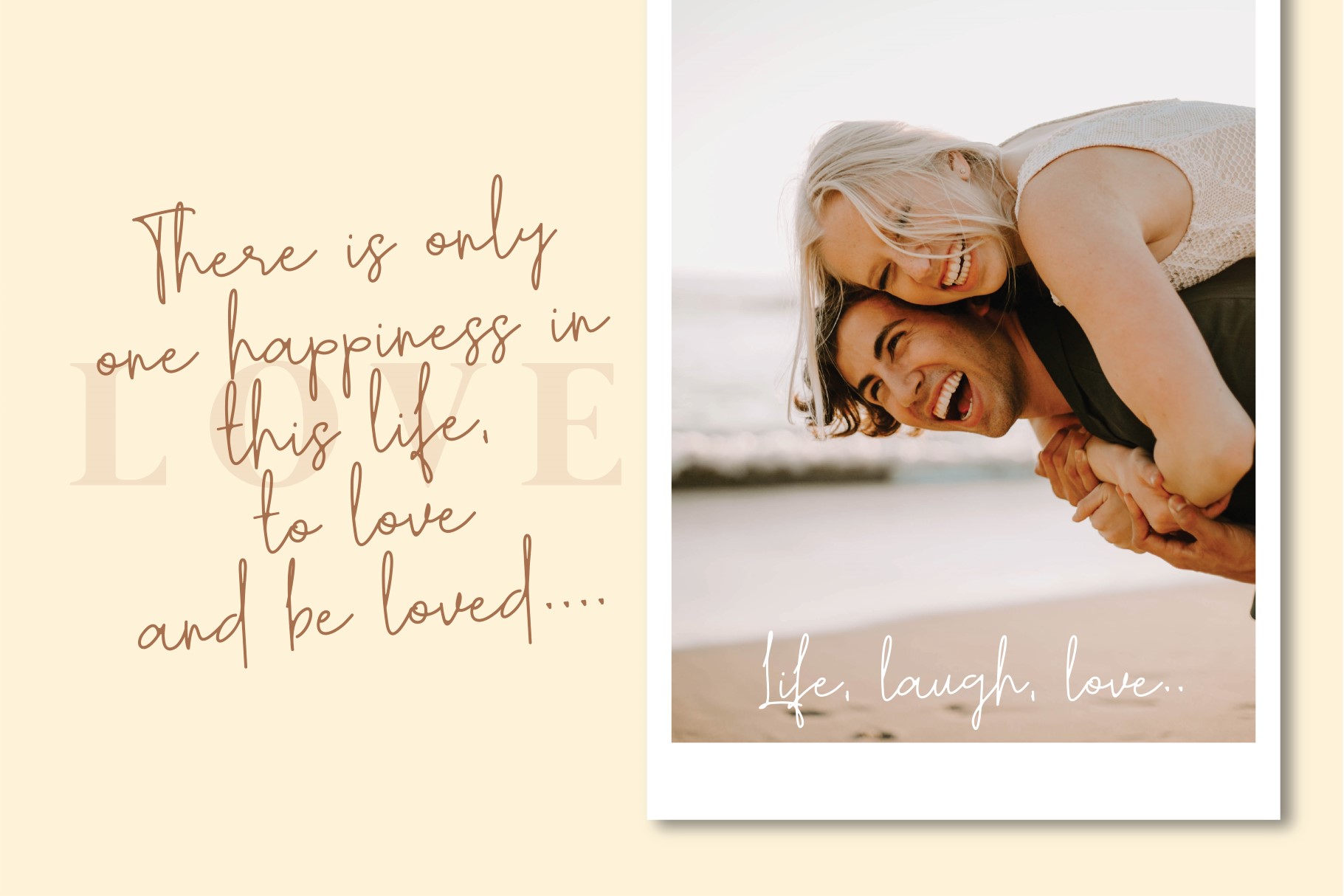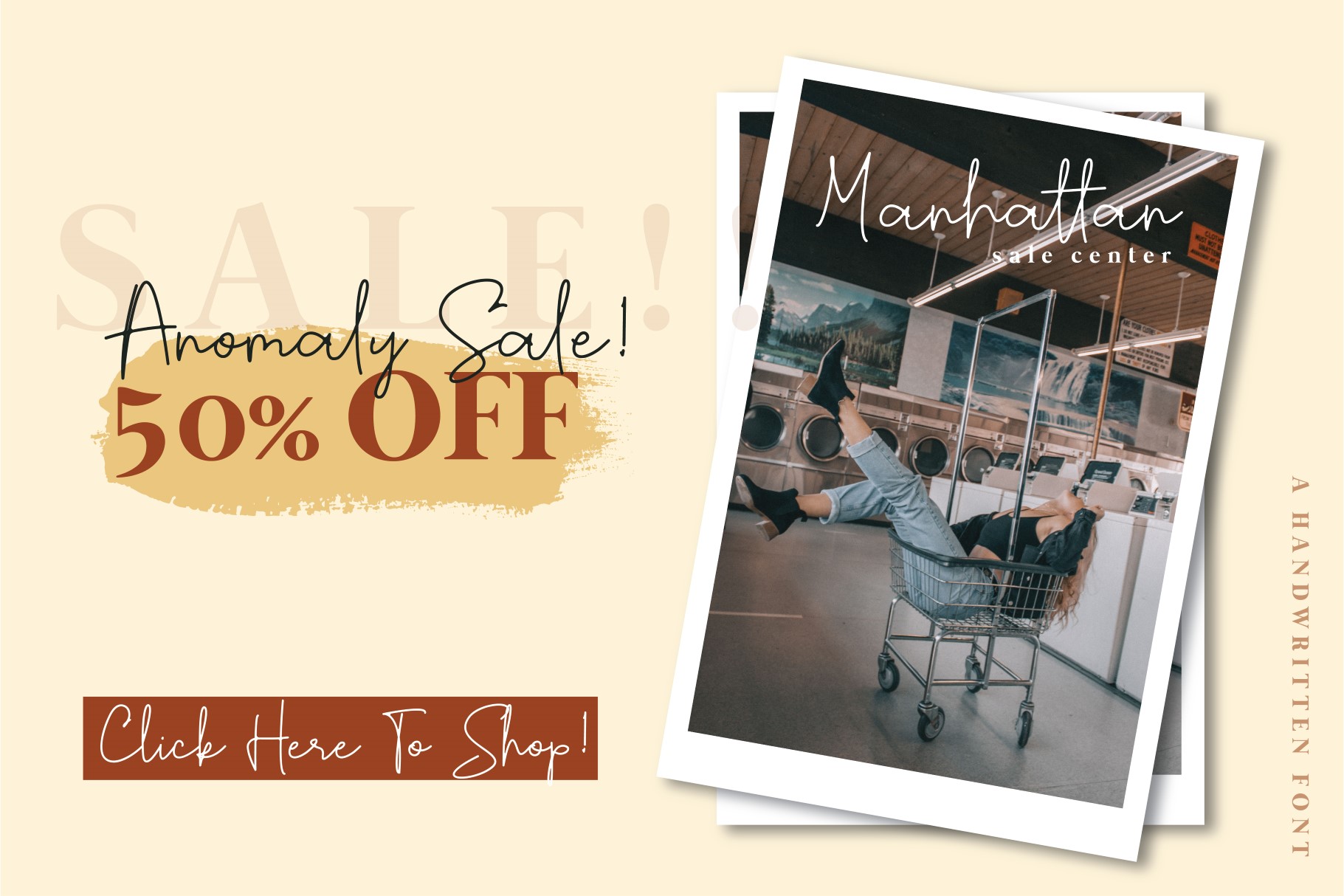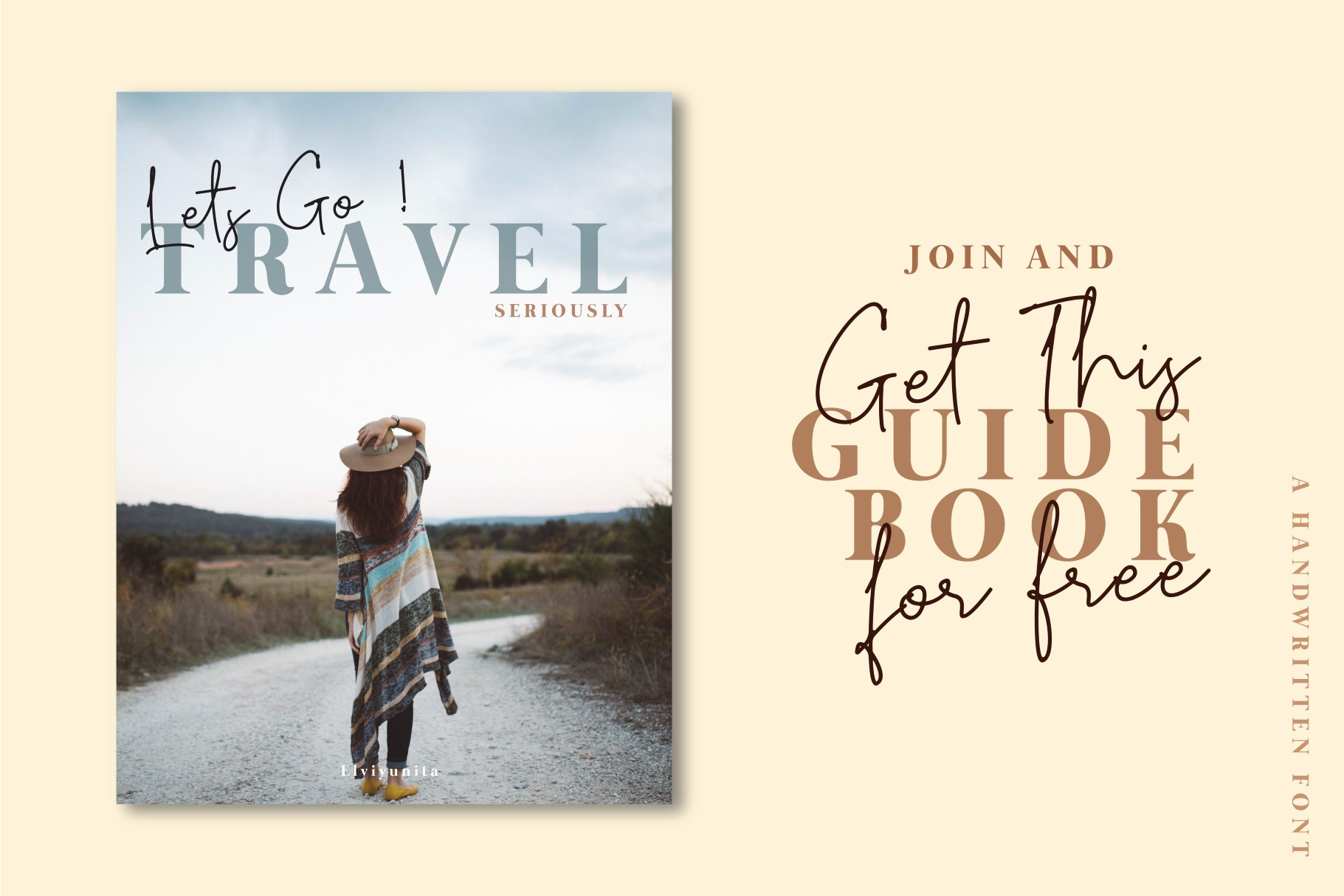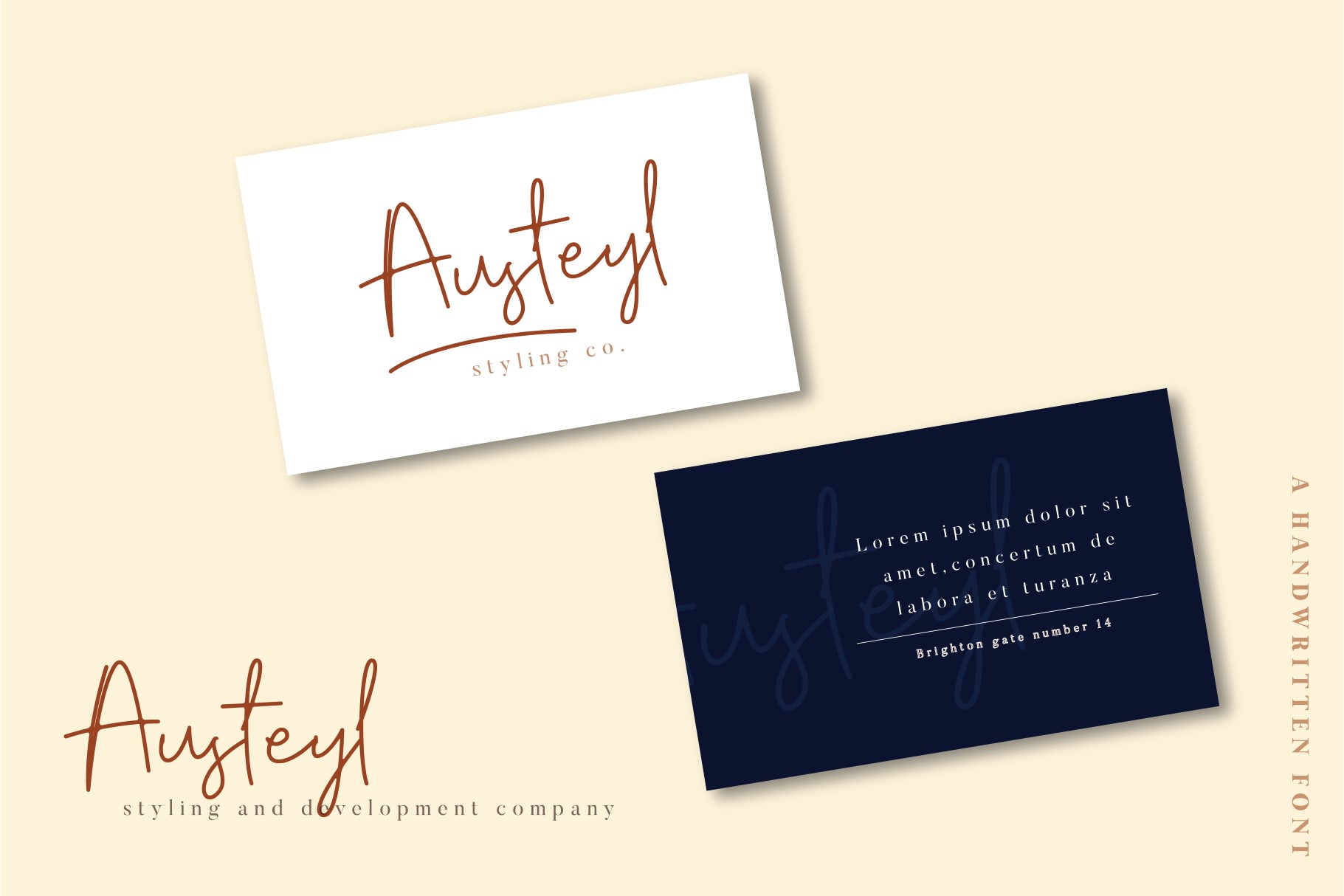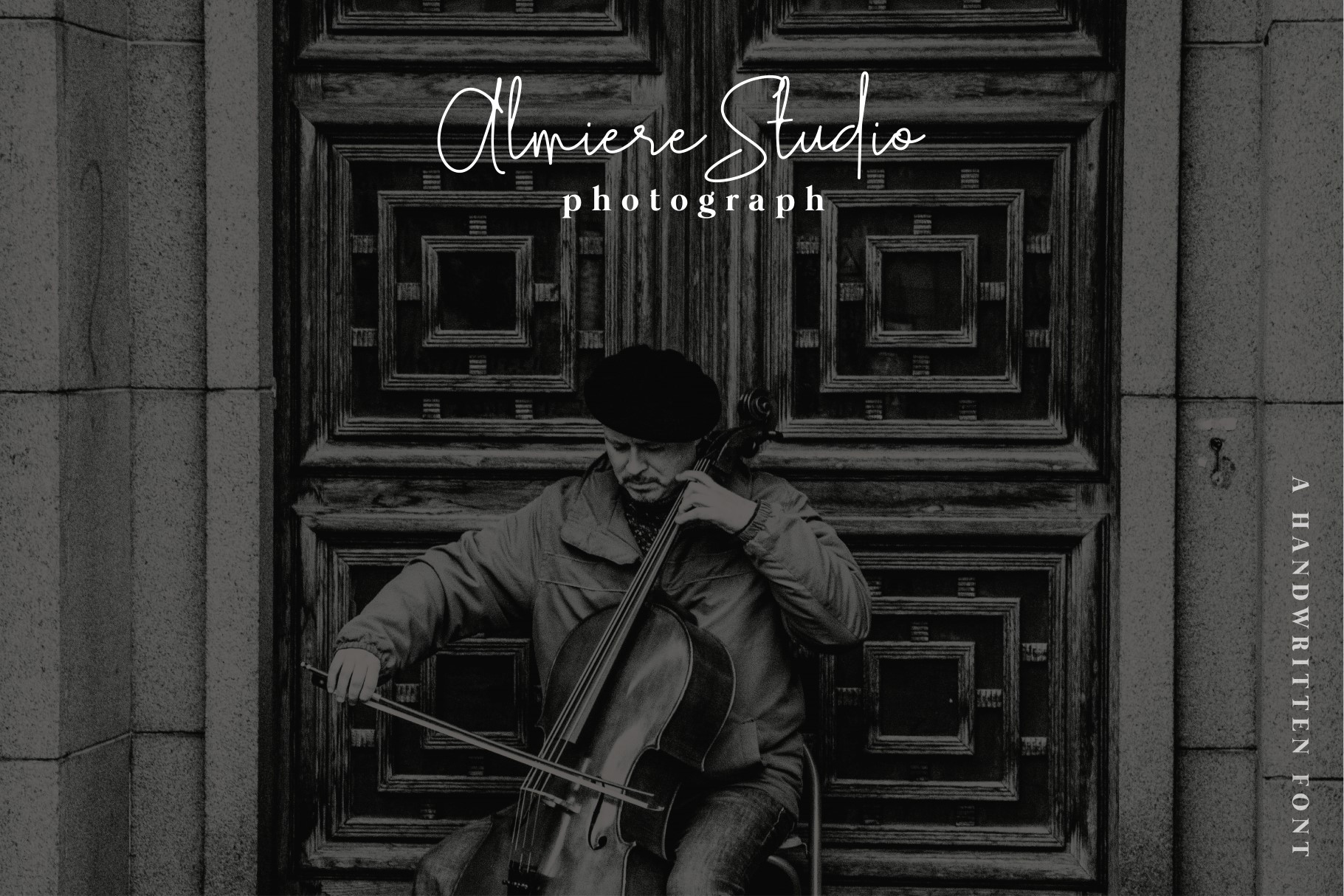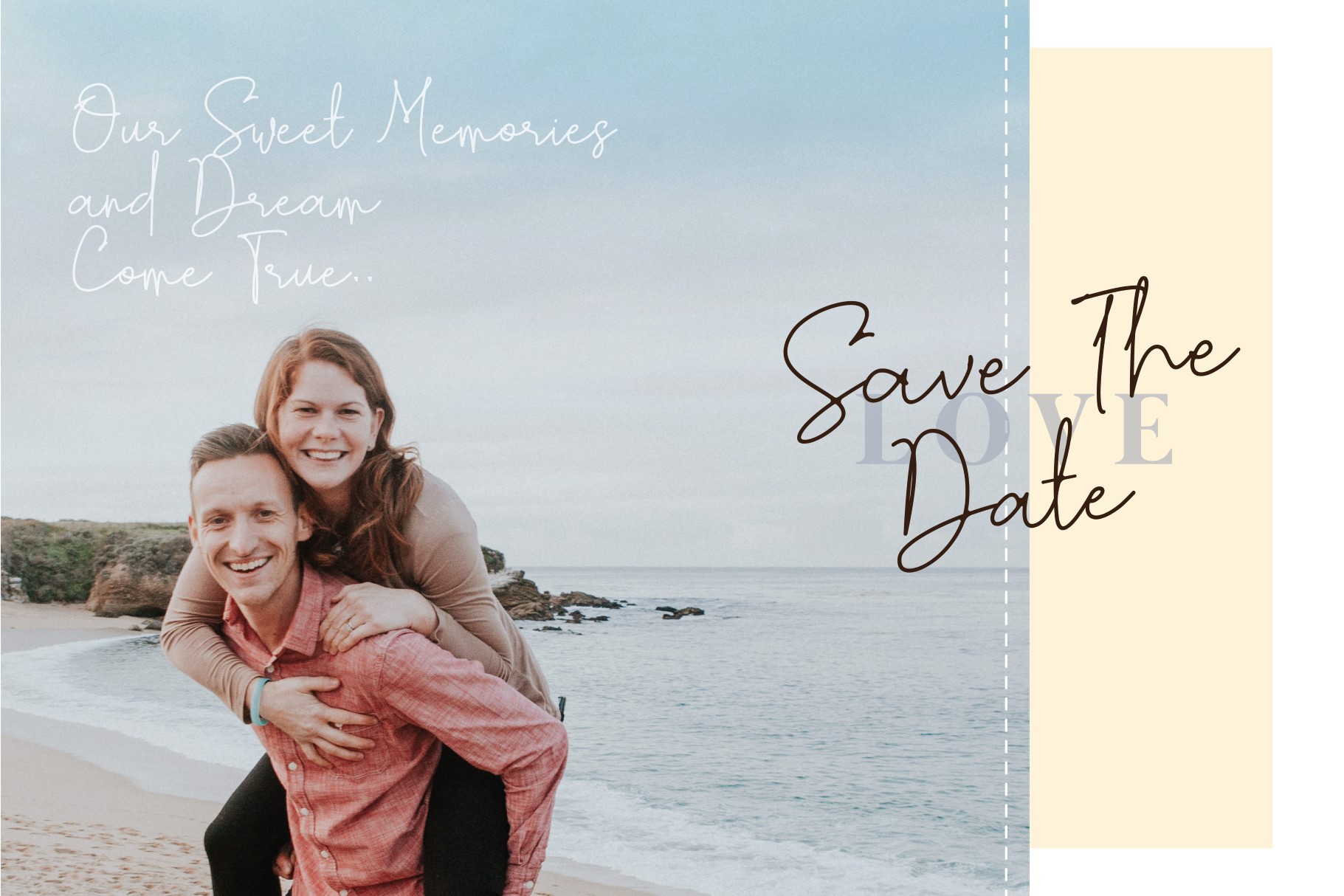
Introduction to Richie Youthfield Font
Richie Youthfield is a brilliant signature font for your any design project.
This font looks elegant, classy, readable, stylish, catchy and is incredibly easy to use With modern and classy sensibilities, Richi Youthfield is a beautiful signature option for adding a stylish touch to your projects.
Richie Youthfield Font offers exceptional quality and versatility, making it a valuable addition to your design toolkit. Whether you’re creating for personal projects or commercial use, Richie Youthfield Font delivers professional results.